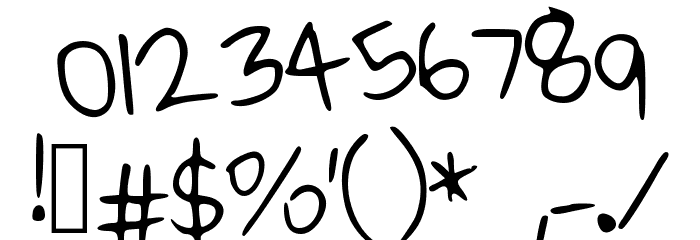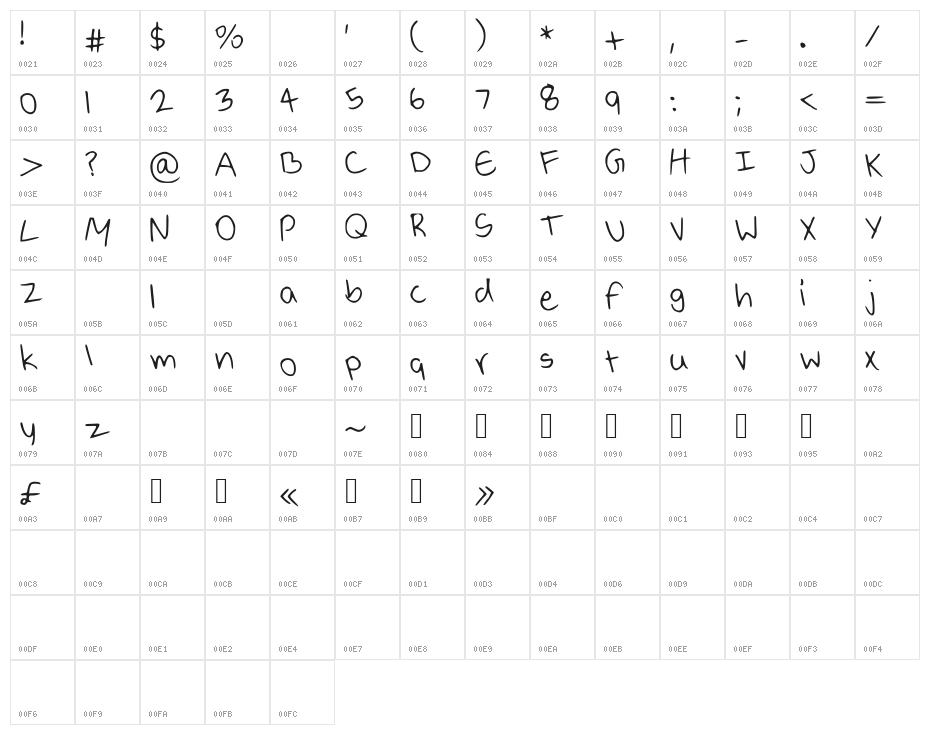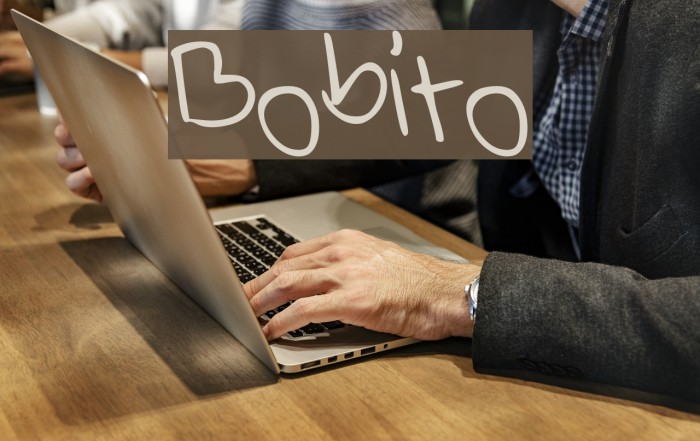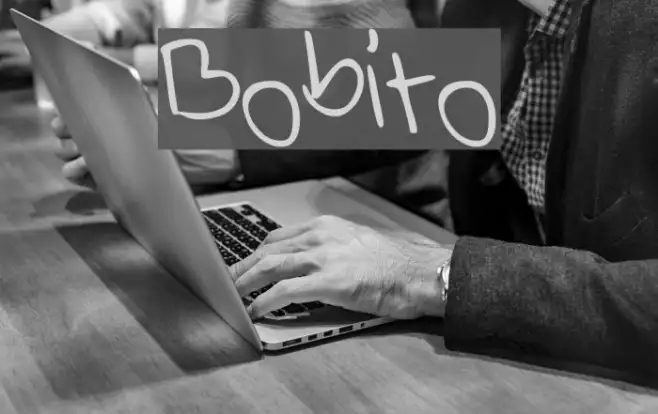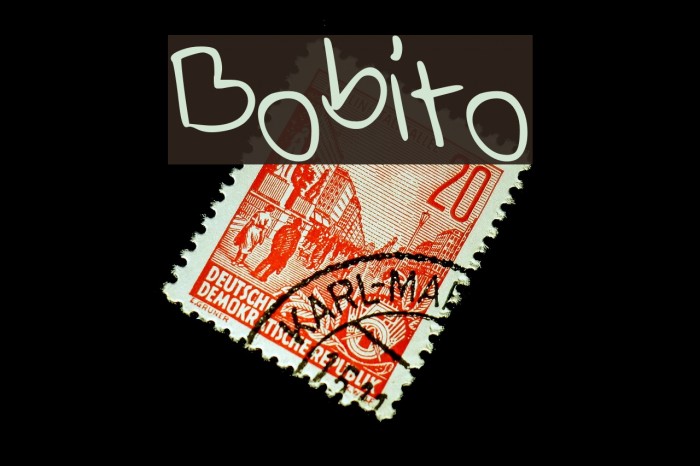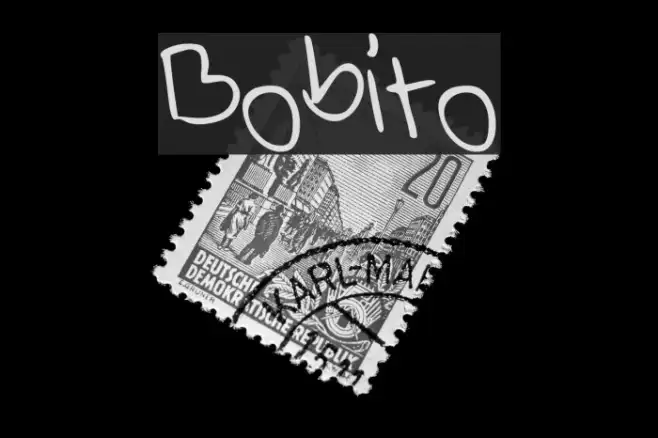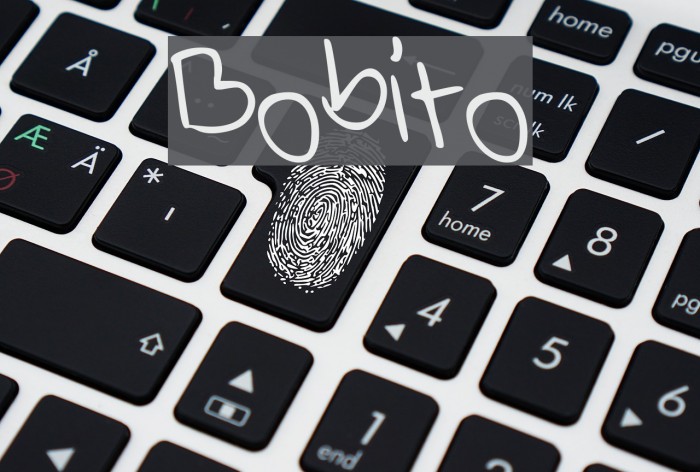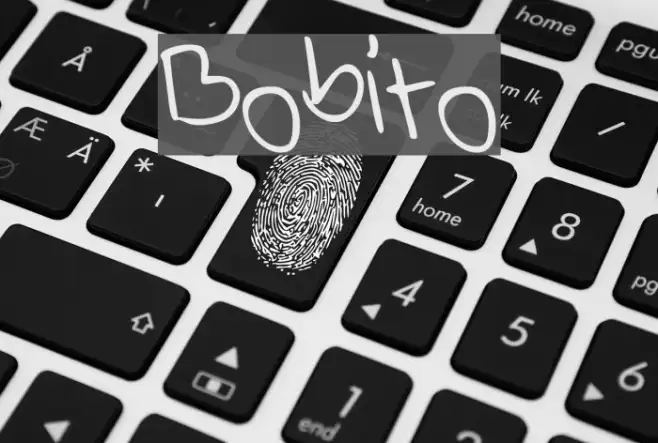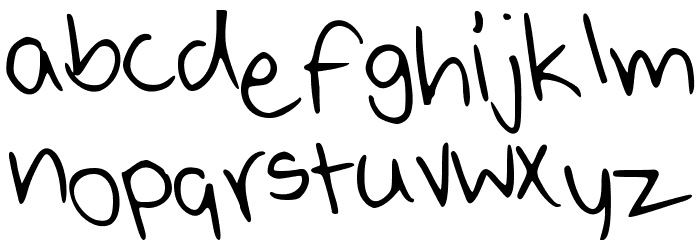
Bobito Font
Bobito Description
This playful and informal font features a handwritten style that exudes a casual and friendly vibe. The letters are slightly slanted, with a natural flow that mimics real handwriting. The strokes are consistent in weight, providing a uniform appearance across all characters. The uppercase and lowercase letters maintain a cohesive look, with rounded edges and a slight tilt that adds to the font's charm. Numbers and special characters are crafted with the same playful touch, making them easily readable while maintaining the overall aesthetic. This font is perfect for projects that require a personal and approachable feel.
| Use Case | Headlines, Informal text, Personal projects |
| Proposed Projects | Ideal for greeting cards, children's books, personal blogs, and informal branding. |